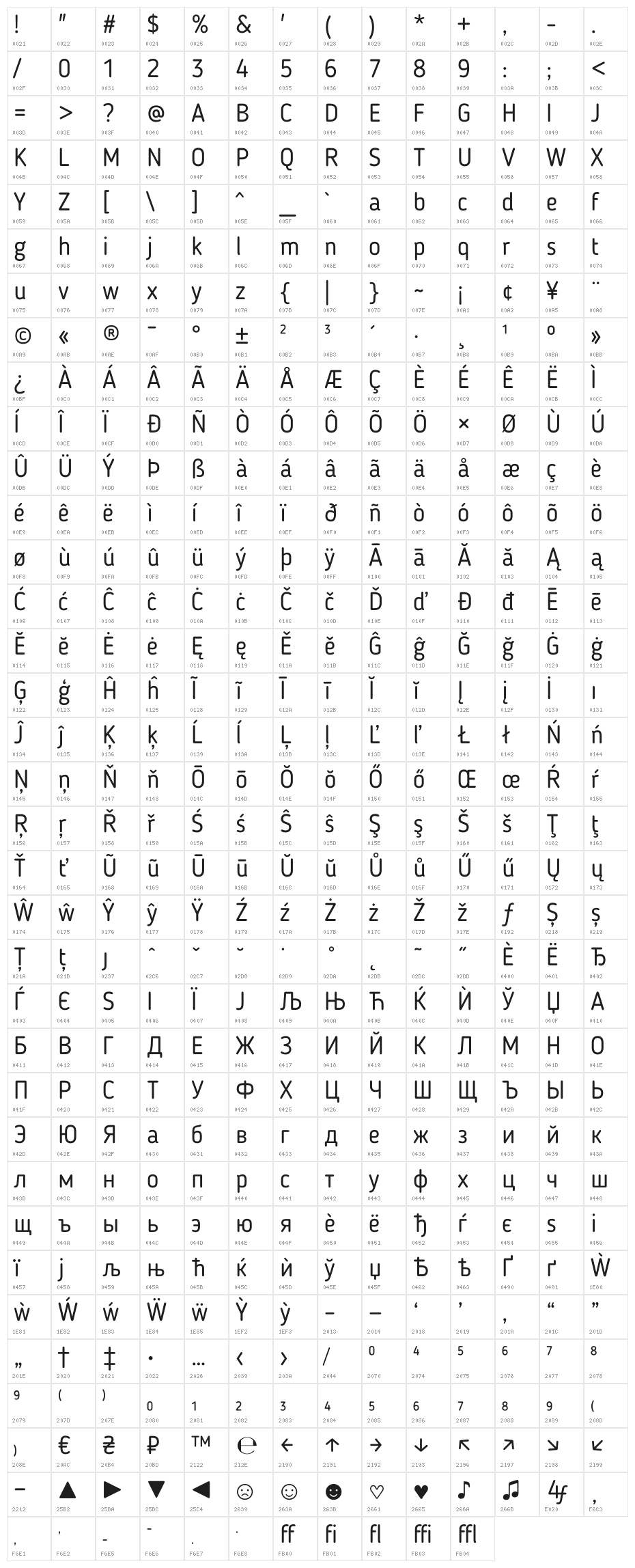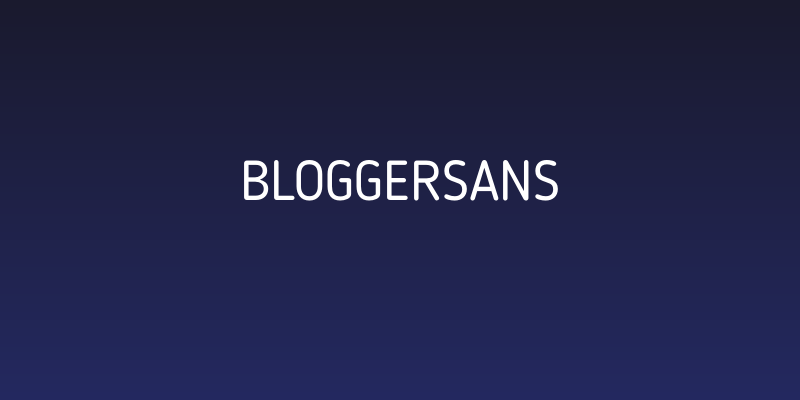
BloggerSans Font
✎ Sans Serif
| Anwendungsfall | Headlines, Body text, Logos |
| Vorgeschlagene Projekte | Ideal for digital interfaces, branding, advertising, and editorial design due to its clarity and modern appeal. |